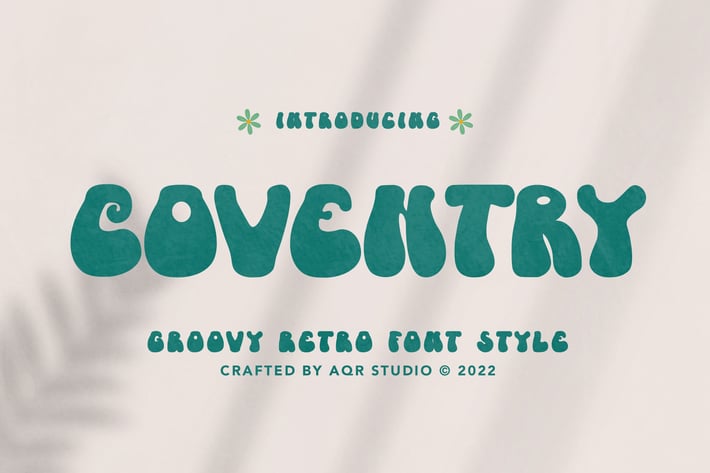
Coventry - Groovy Retro Font
Coventry - Groovy Retro Font_ contains a lowercase, uppercase, symbol, and also supports multi-language. There’s a lot of ligature in this font. Coventry - Groovy Retro Font also comes with ligatures, stylistic alternates and many more.
this font suitable for fashion, branding, catalog and other design that you want.